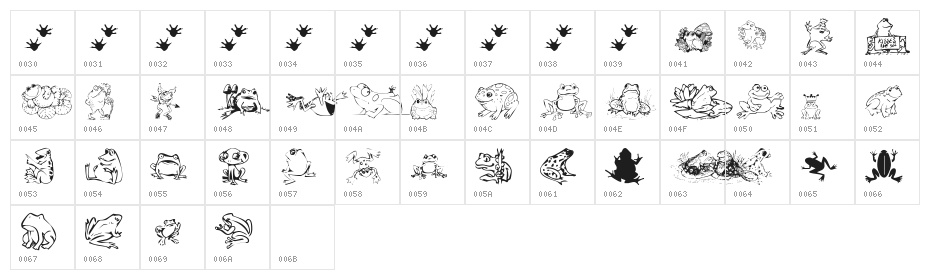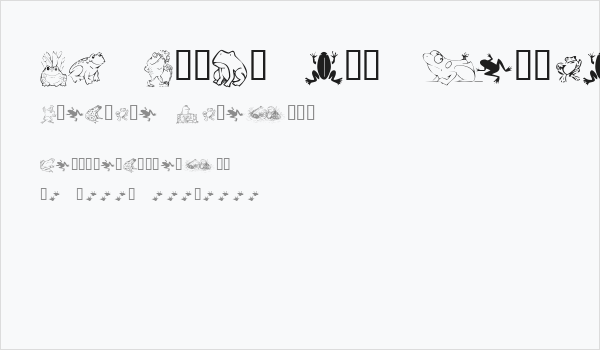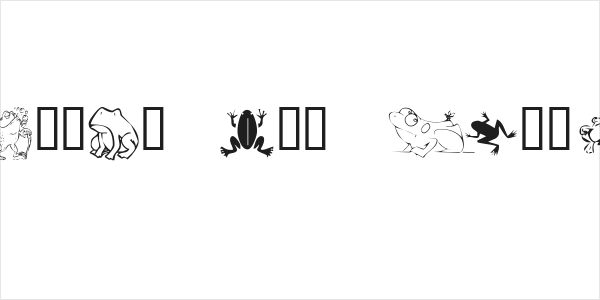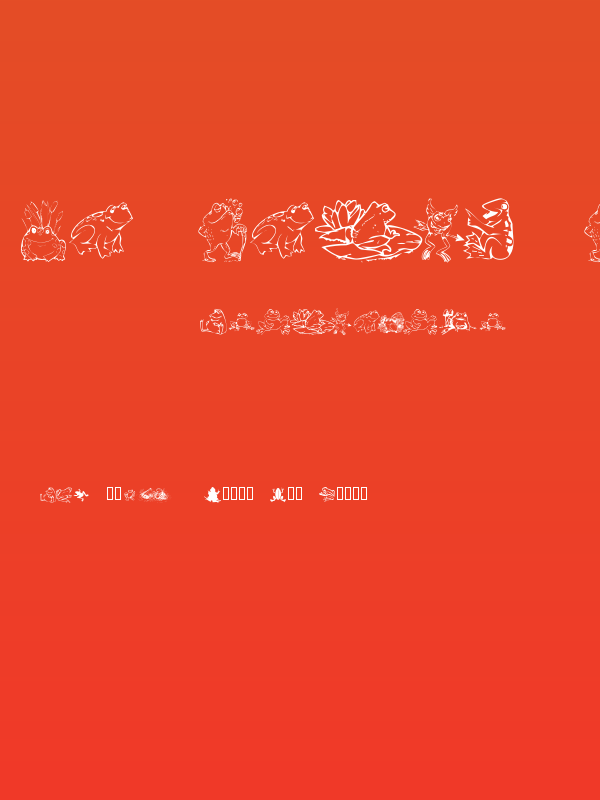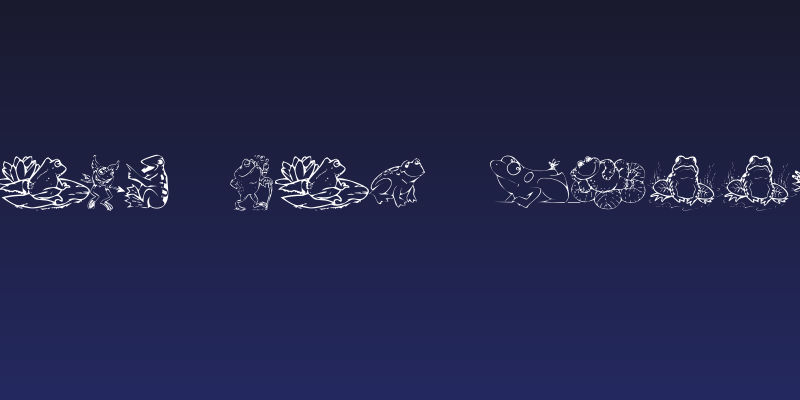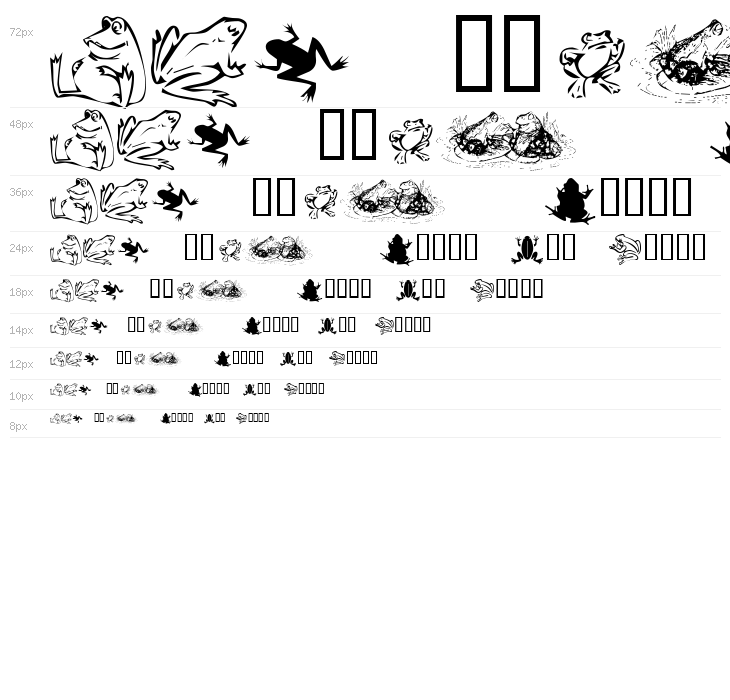
KR Frogs for Jennifer Font
KR Frogs for Jennifer Description
This unique and playful font features a series of whimsical frog illustrations, each character represented by a different frog in various poses and expressions. The design is highly decorative, with intricate details capturing the charm and personality of each frog. The font is not meant for traditional text but rather serves as a creative and artistic representation, ideal for projects that require a fun and engaging visual element. The characters are well-spaced, allowing each frog illustration to stand out distinctly.
Overall StylePlayful, Whimsical, Artistic
Use CaseLogos, Decorative headings, Artistic projects
Proposed ProjectsIdeal for children's books, playful invitations, themed posters, and any project requiring a fun, nature-inspired element.